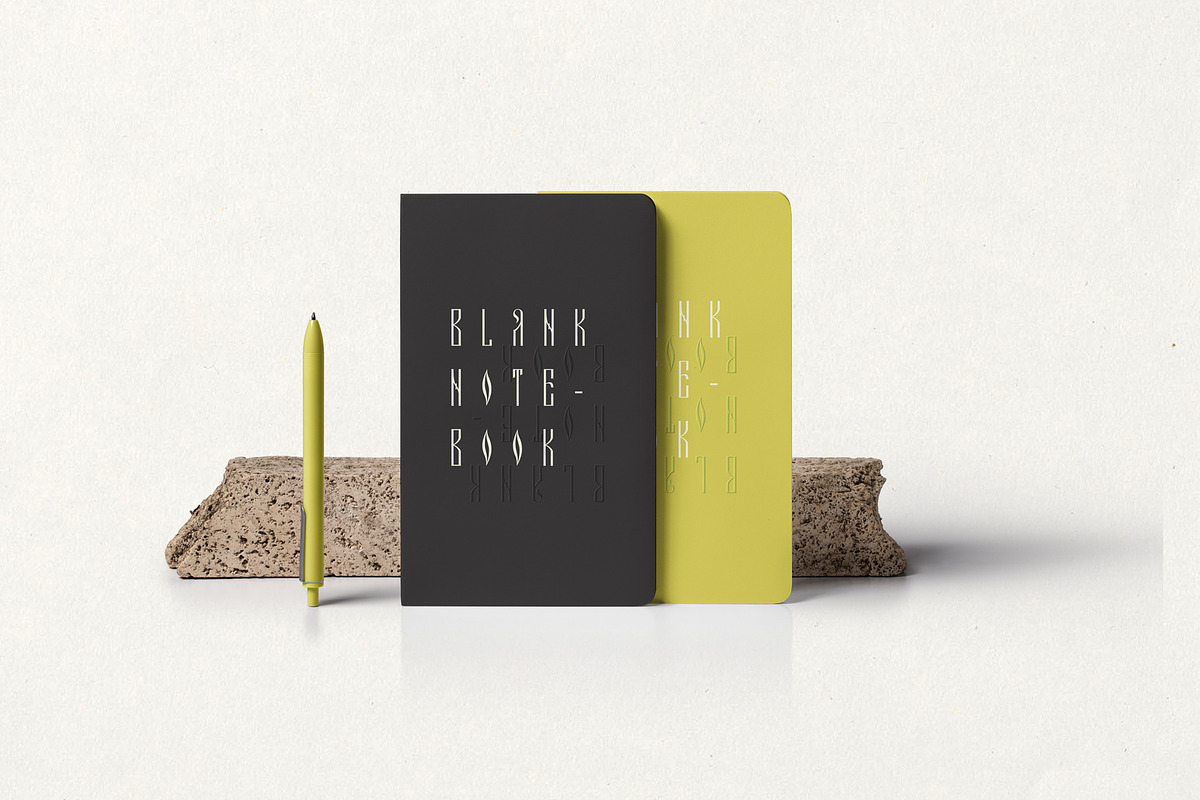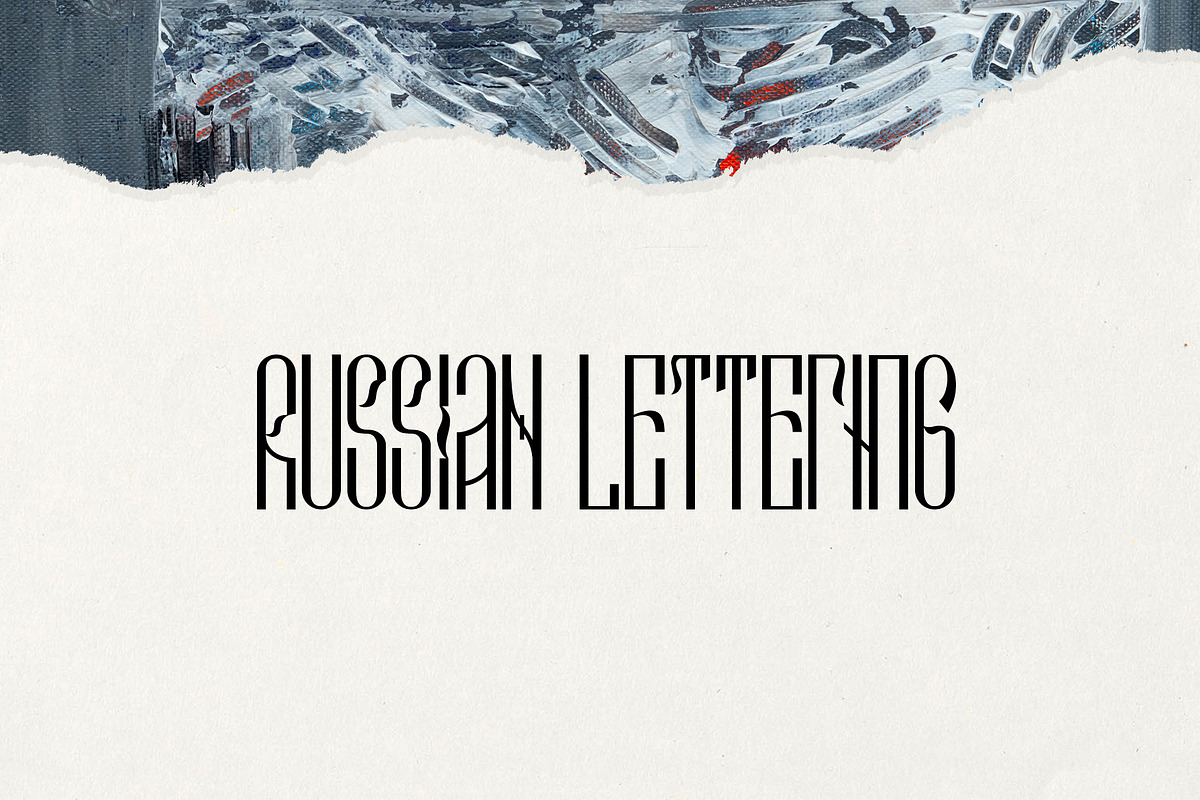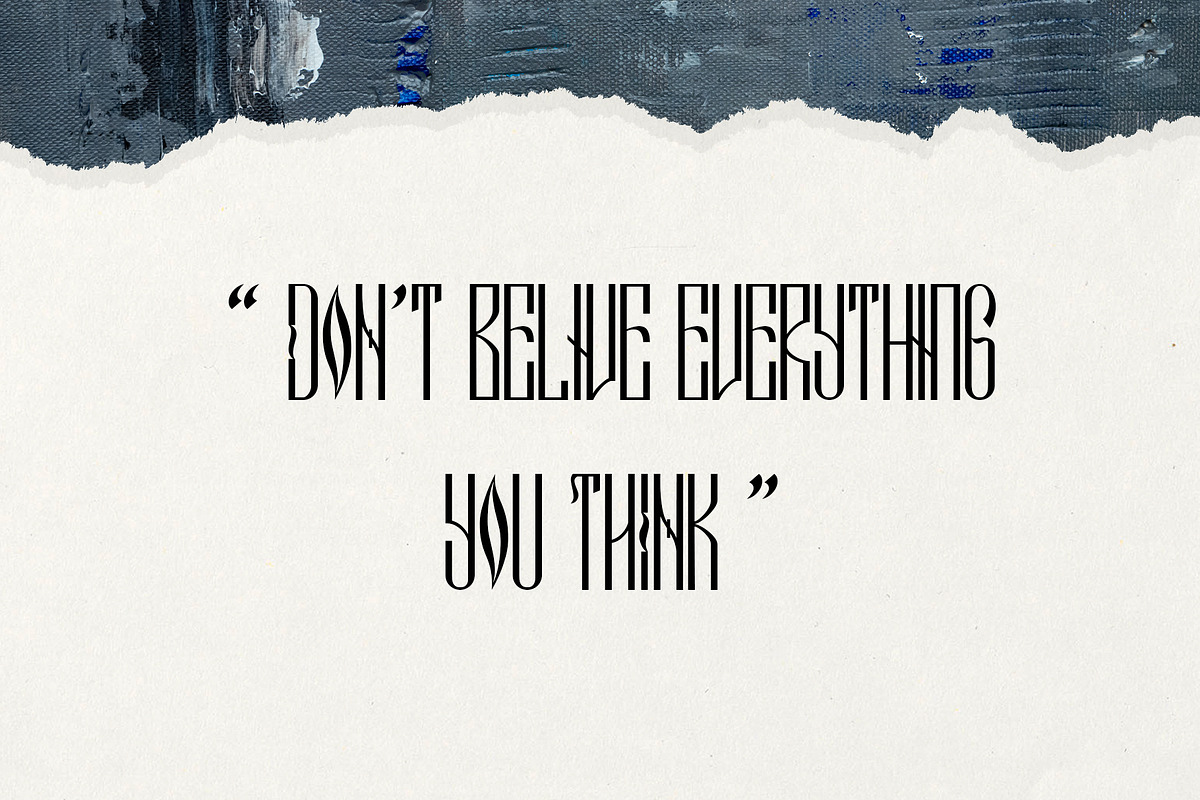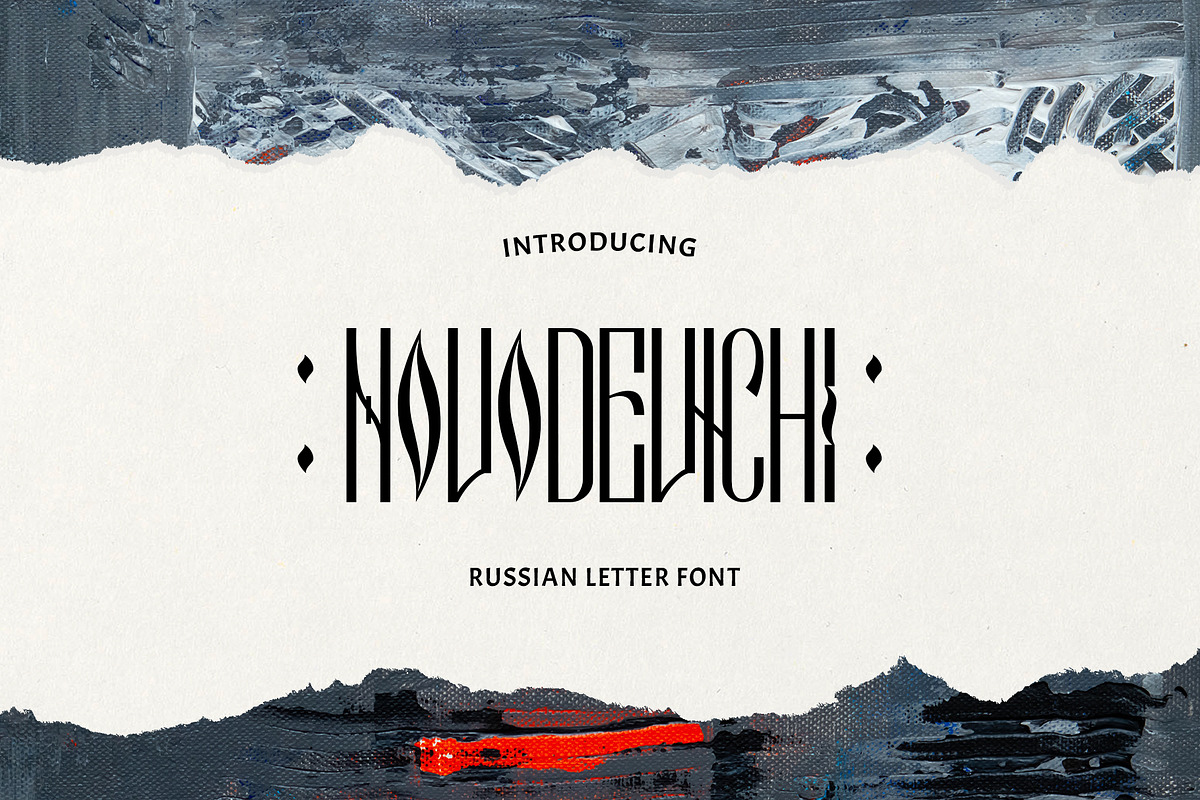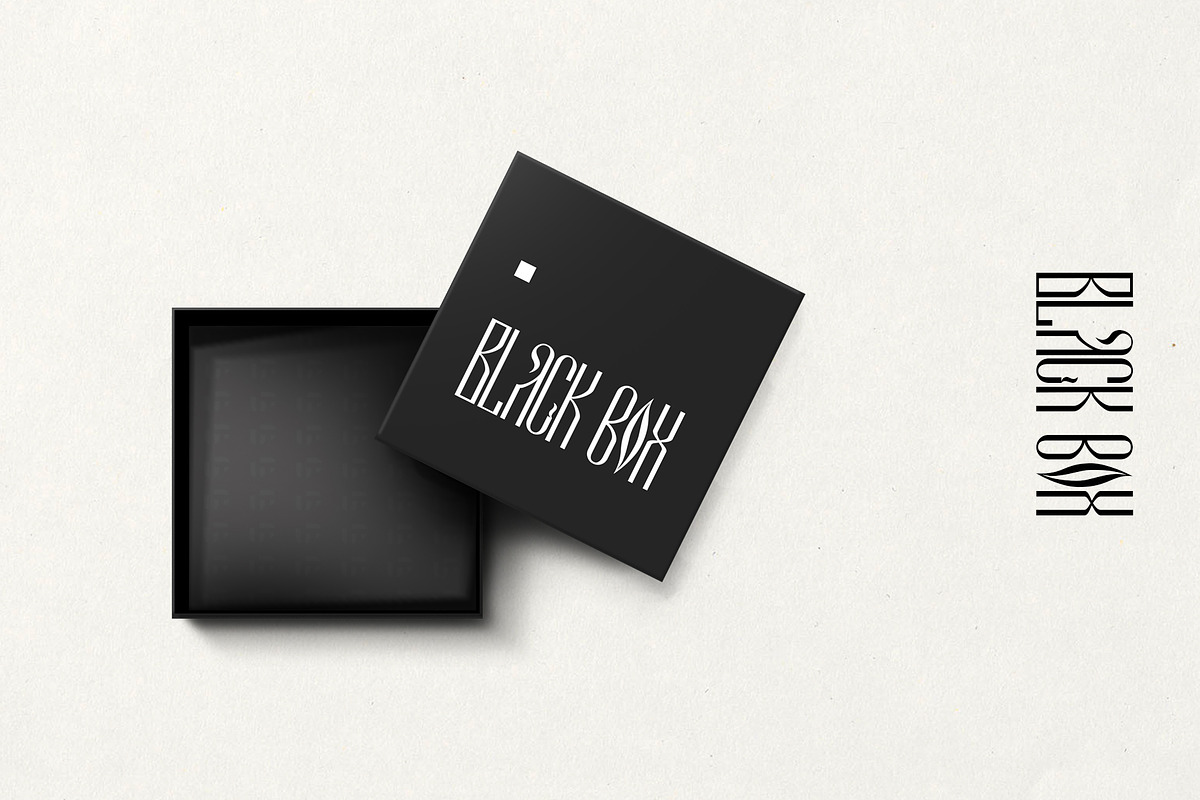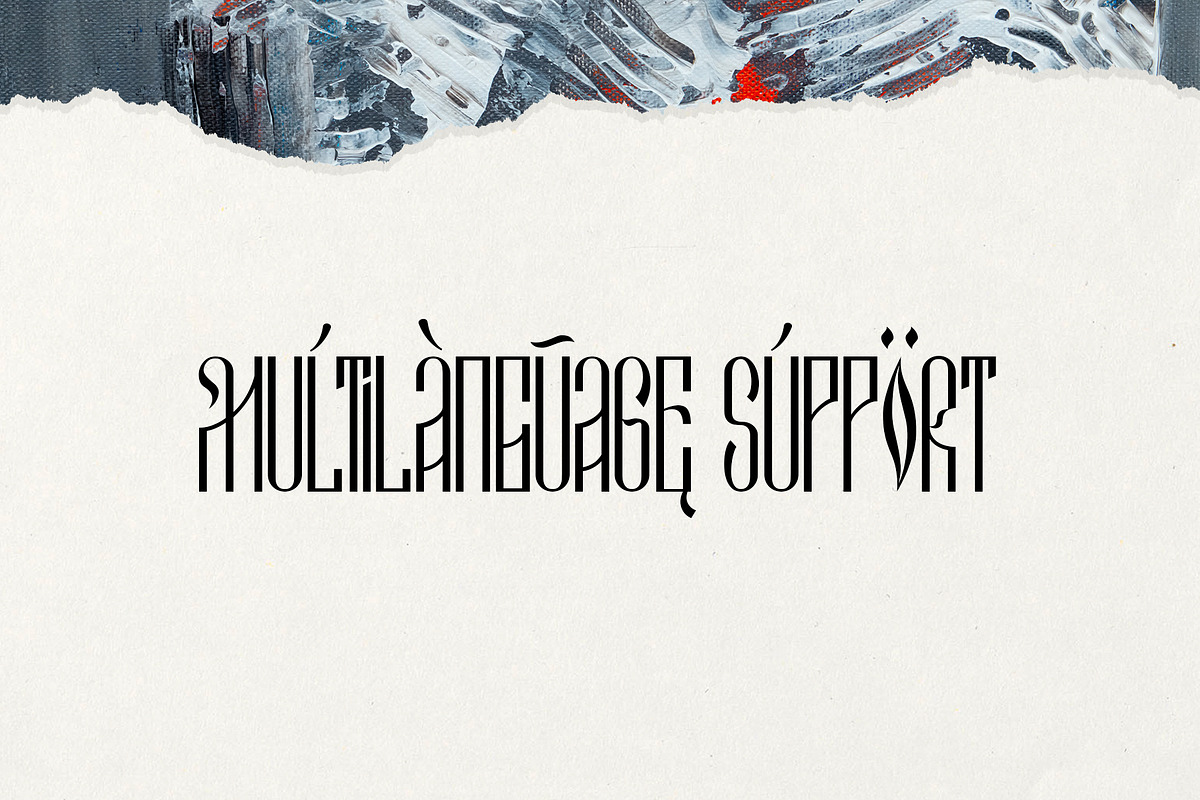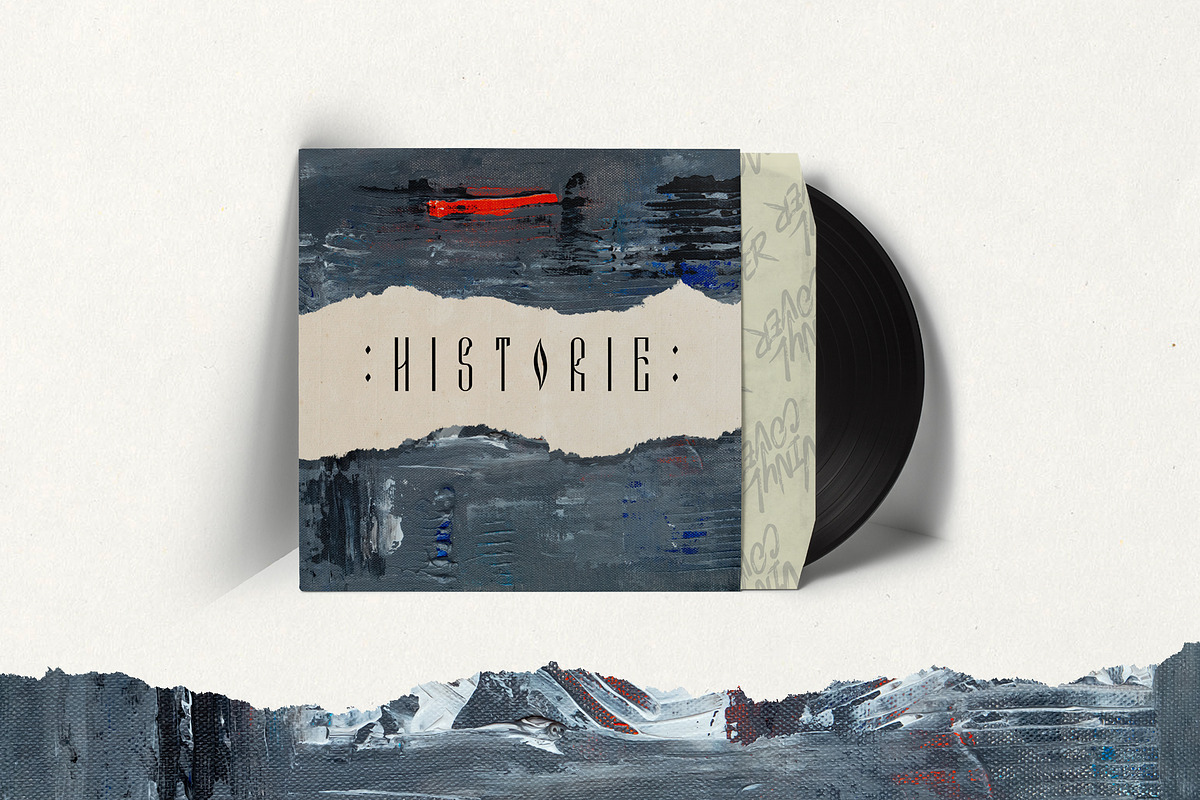
Novodevichi - Russian Letter font
Novodevichi, this font I made because I like Russian lettering. I tried to combine the Latin alphabet and the Russian alphabet, I made it easy to read but still maintained the Russian alphabet style. There are several features of this font such as ligature and alternatives. maybe you can make a more attractive design with this font, and don't hesitate to show it to me. This font is suitable for poster designs, layouts, logos, branding, or maybe collections, etc.
multi language support
- There are several features of this font such as ligature and alternatives.